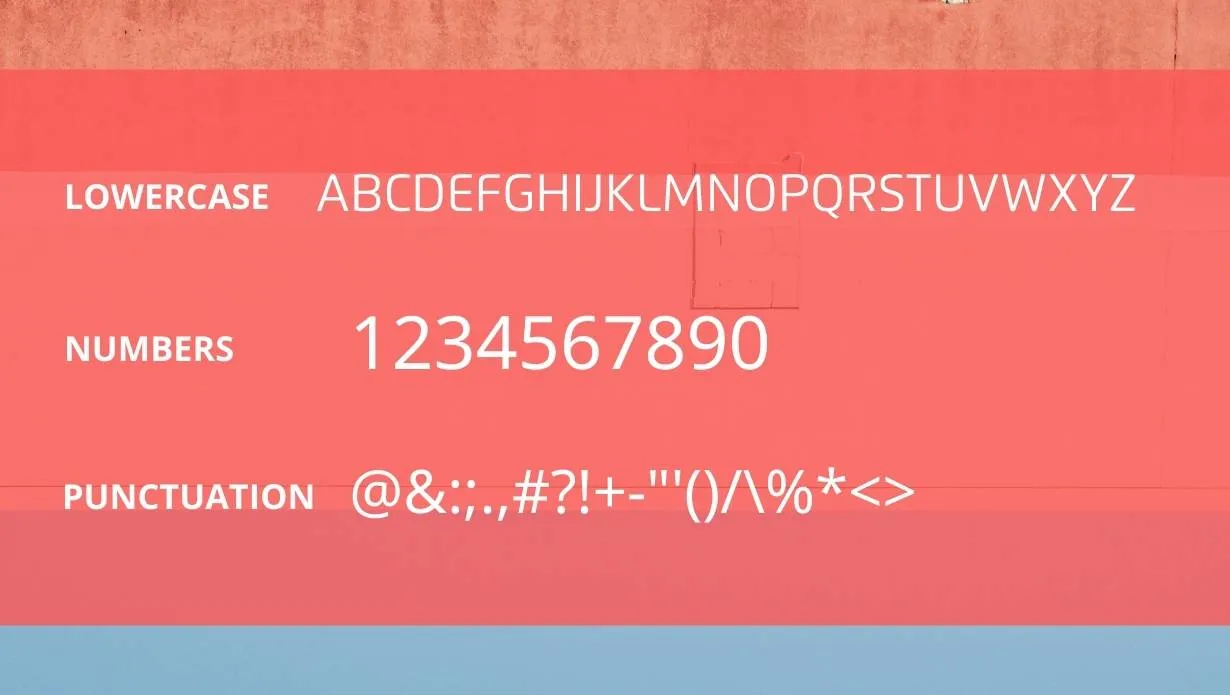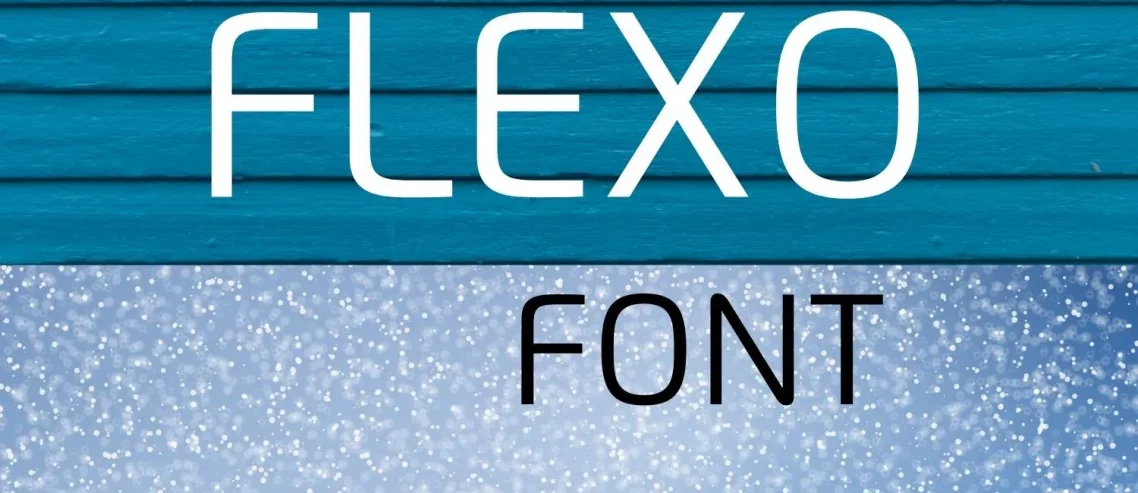
Flexo font is a sans-serif typeface designed by Dutch graphic designer Pieter van Rosmalen. It was released in 2013 by Rosmalen’s independent type foundry, Just van Rossum.
This font is a geometric sans-serif with restrained curves, designed for screen use. The font is available in six weights, from thin to black, with matching italics.